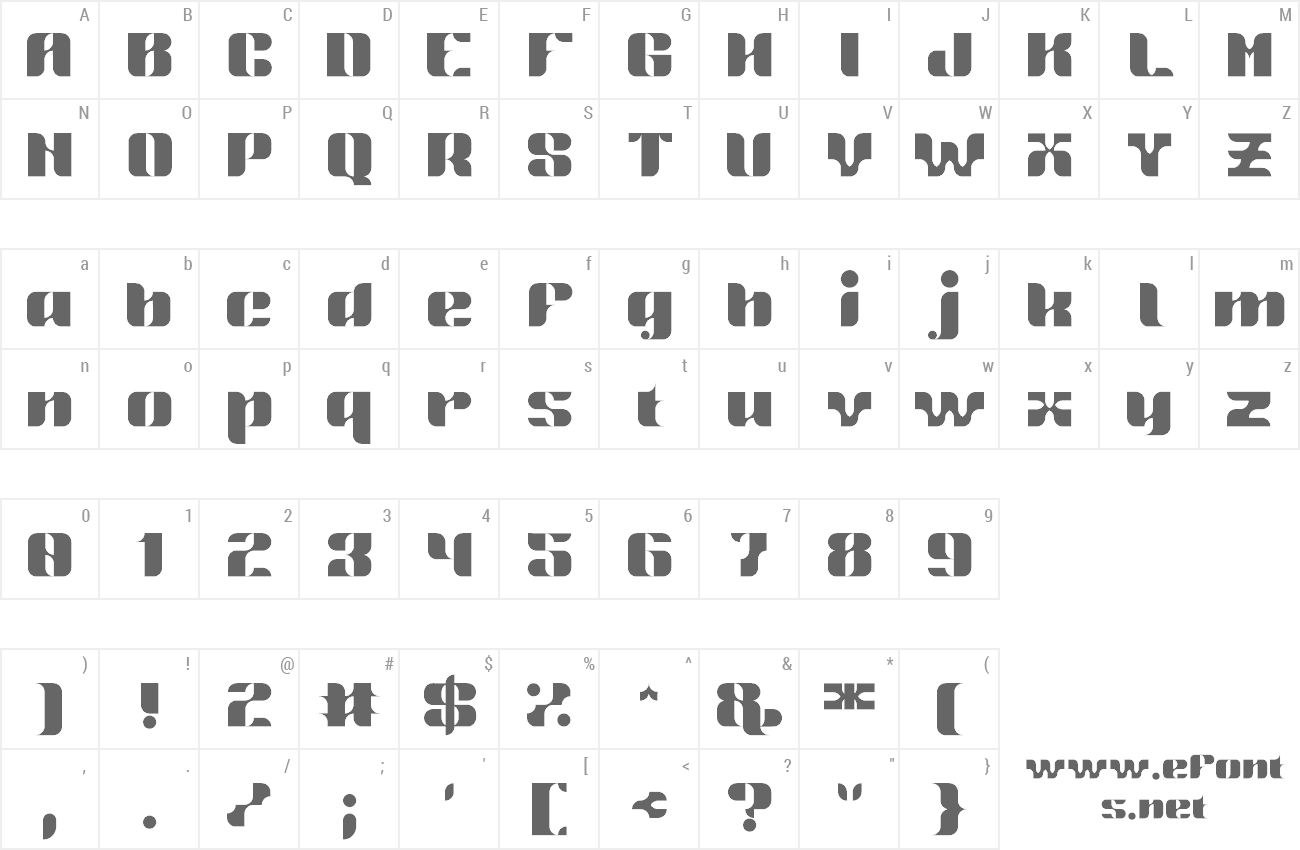
| Font name: | Demodulator |
| Author: | Thor Christopher Arisland |
Demodulator is a modular variable font. It comes in two weights, regular and bold, as well as everything in between when you use its OpenType features. This font is free for personal use. For commercial use, please purchase a license from my store: https://www.creativefabrica.com/designer/thorchristopherarisland/ref/38065/ For more information about me and my other creative work, my website is available at: www.tcarisland.no |